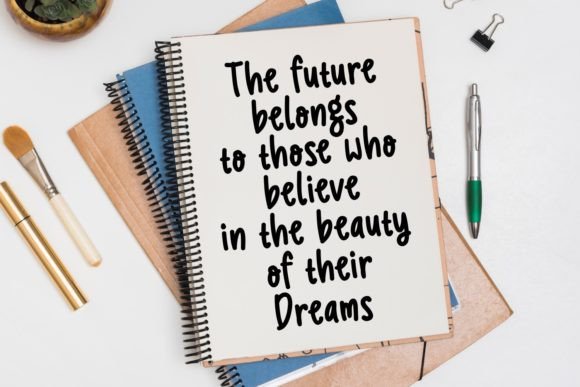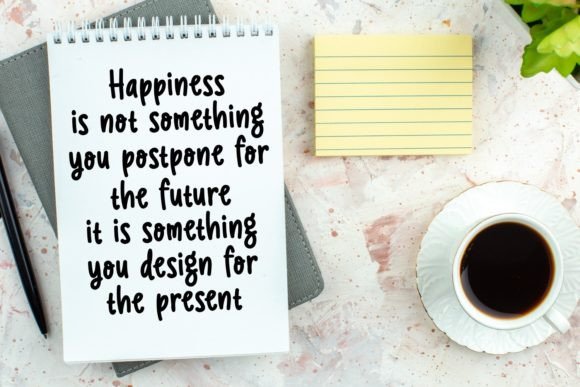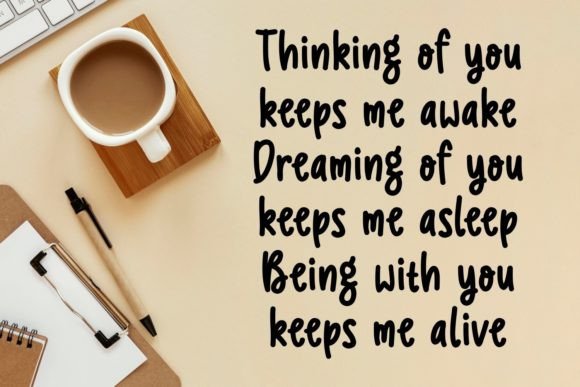
About Happy Notes Font
“Happy Notes” emerges as more than just a font; it’s a handwritten expression of positivity and character. Infused with charm and style, this friendly hand-lettered typeface is crafted to bring a delightful touch to your designs. Perfectly suited for quotes, headings, logos, branding, merchandise, and websites, “Happy Notes” becomes a versatile and expressive tool for creators seeking to infuse a sense of joy into their projects.
The positivity radiates through the handwritten strokes of “Happy Notes,” creating a visual language that is not just textual but also emotive. The characters are meticulously designed to convey a sense of friendliness, making the font an ideal choice for projects that aim to establish a warm and approachable tone.
The charm and style embedded in “Happy Notes” make it stand out as a typeface that transcends mere letters. It becomes a visual representation of the positive energy it exudes, making it suitable for a variety of creative applications. Whether you’re crafting impactful quotes, defining brand identities, or enhancing website aesthetics, this font seamlessly integrates into diverse design contexts.
“Happy Notes” is more than a font; it’s a design companion that adds character and vibrancy to your creative expressions. Its hand-lettered quality contributes to the authenticity of your designs, creating a personal and genuine connection with the audience.
In branding, “Happy Notes” becomes a signature element that communicates not just words but also a brand’s personality. Logos designed with this font carry a friendly and inviting feel, leaving a lasting and positive impression on viewers.
Merchandise adorned with “Happy Notes” benefits from the font’s ability to evoke a sense of joy. Whether applied to apparel, accessories, or any other merchandise, the font becomes a powerful visual element that resonates with those who encounter it.
Websites, the digital landscapes of our interconnected world, find an ally in “Happy Notes.” The font injects a dose of positivity and character into web design, creating a user-friendly and engaging experience.
In essence, “Happy Notes” is not just a typeface; it’s a vessel for positivity, character, and style. By integrating this font into your creative toolkit, you’re not just choosing letters; you’re selecting a design partner that elevates the mood and impact of your projects, spreading joy one stroke at a time.